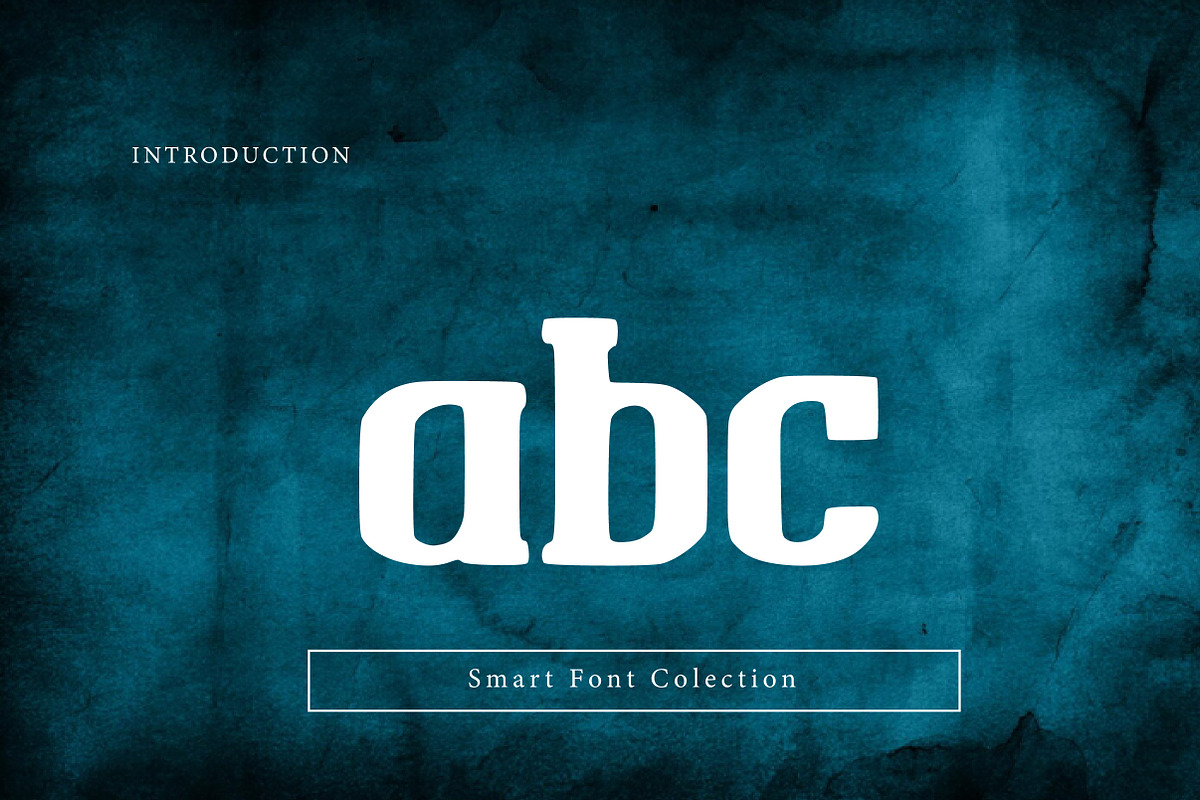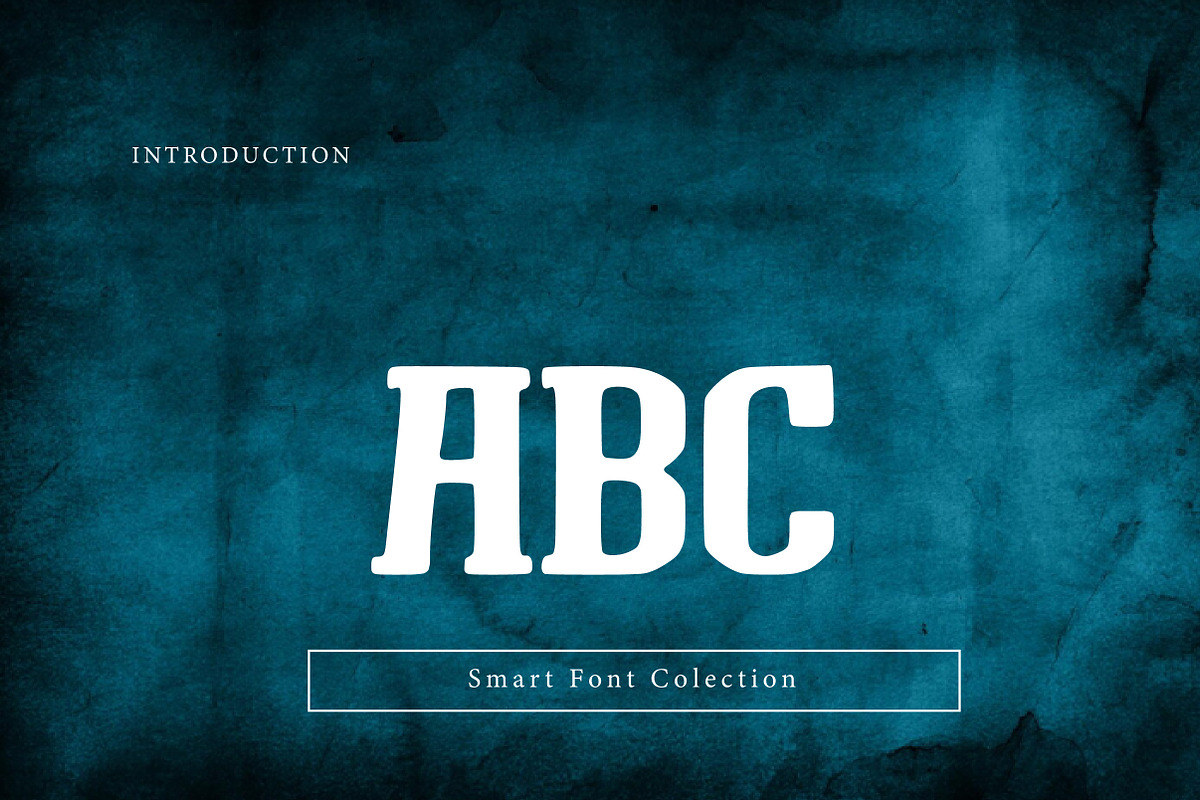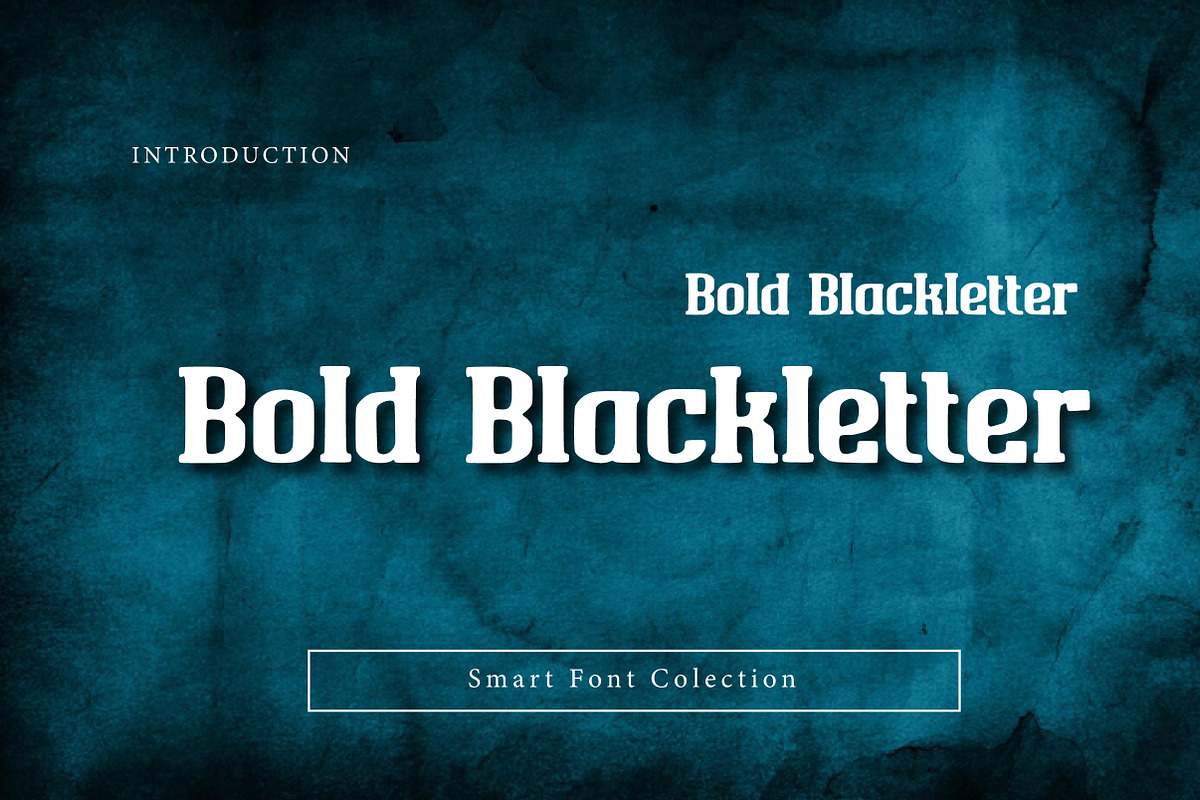
Bold Blackletter
Bold Blackletter is a strong and dramatic blackletter display font inspired by traditional gothic and medieval typography. Featuring thick strokes, sharp angles, and bold letterforms, this font is perfect for logos, branding, posters, tattoos, album covers, book titles, packaging, and dark-themed designs. Bold Blackletter delivers a powerful vintage and historic feel while maintaining excellent readability for impactful headlines and bold typography projects.